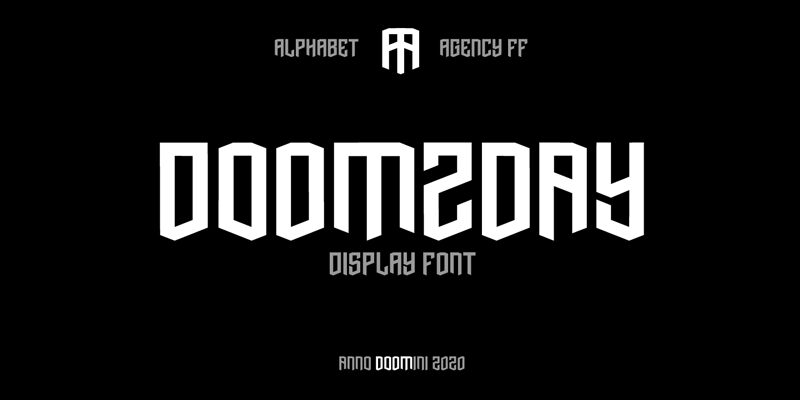
doOmzday is a modern gothic font designed by Jonathan Swinn that is perfect for projects that require a unique and edgy touch. With an extra-condensed width, this font is ideal for headlines, titles, and other large text elements that need to grab attention. Its bold and striking appearance makes it suitable for a wide range of applications, from branding and packaging design to posters, flyers, and more. Whether you're looking to add a touch of darkness to your project or simply want to stand out from the crowd, doOmzday is the perfect choice for anyone who wants to make a bold statement with their typography.